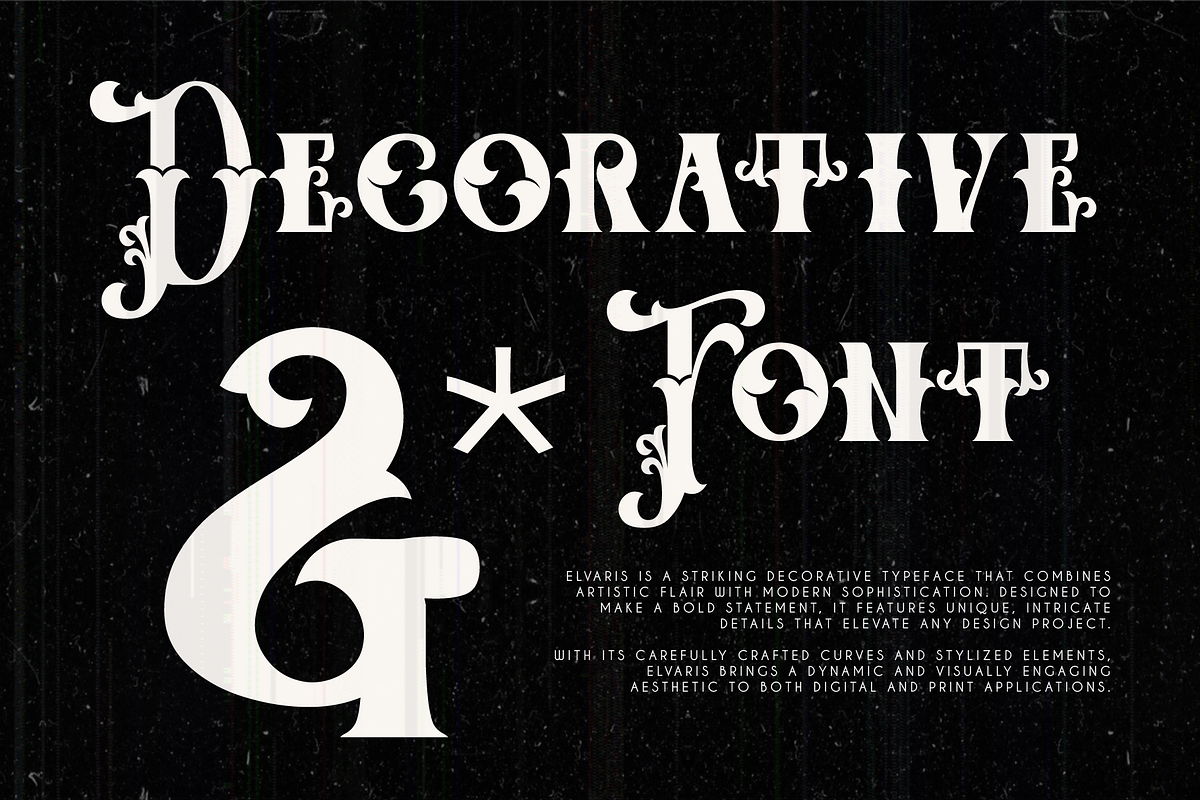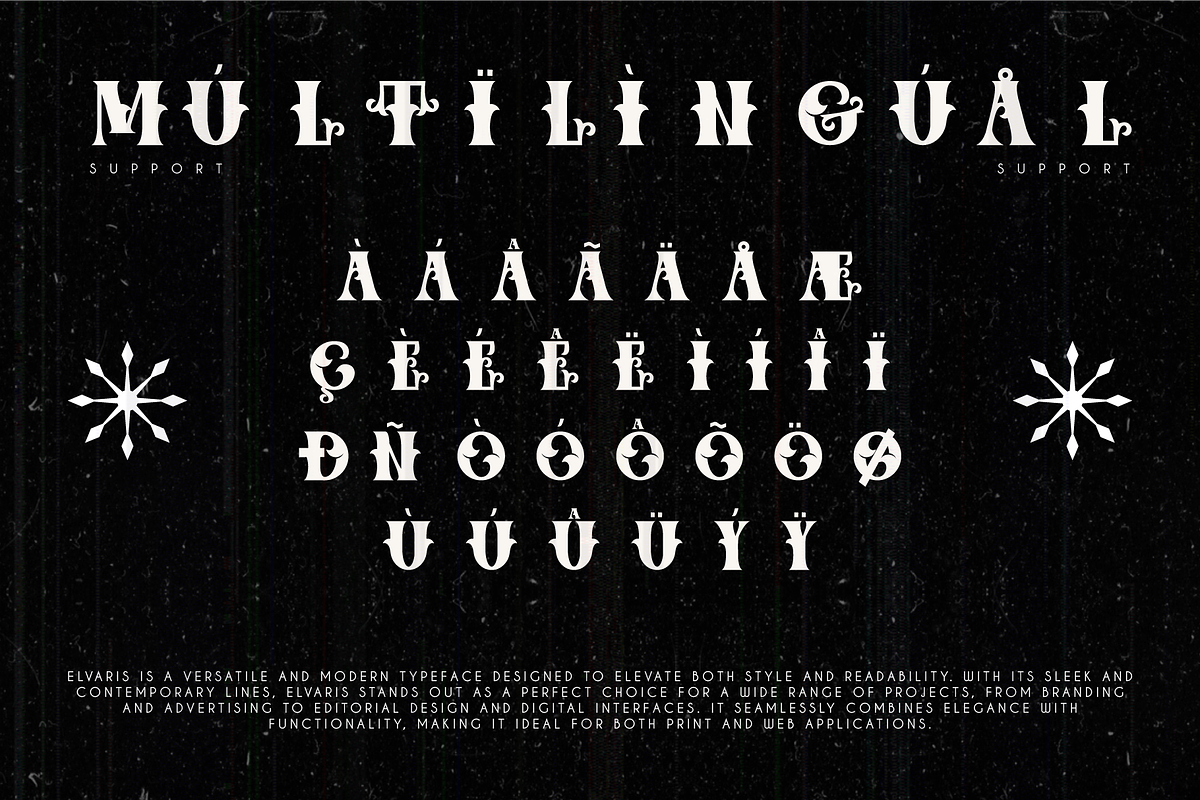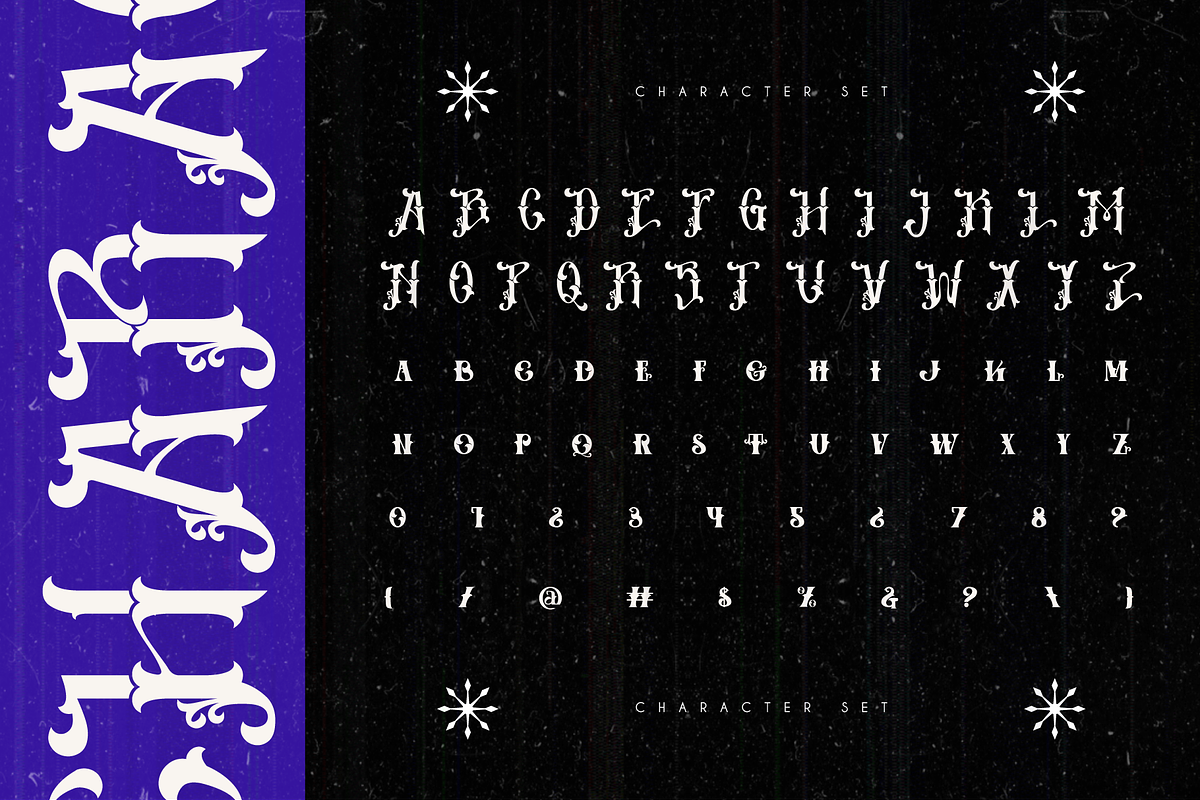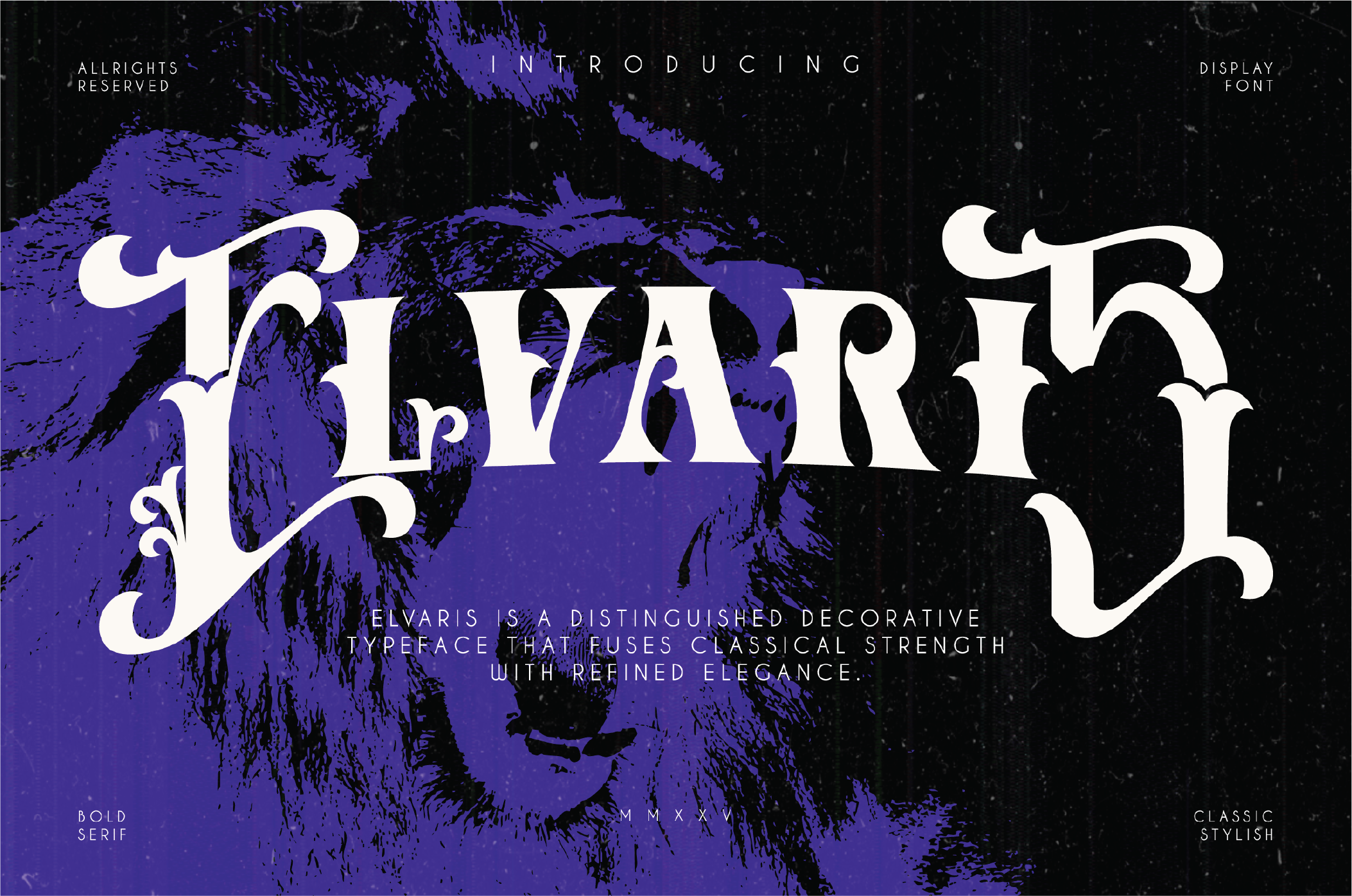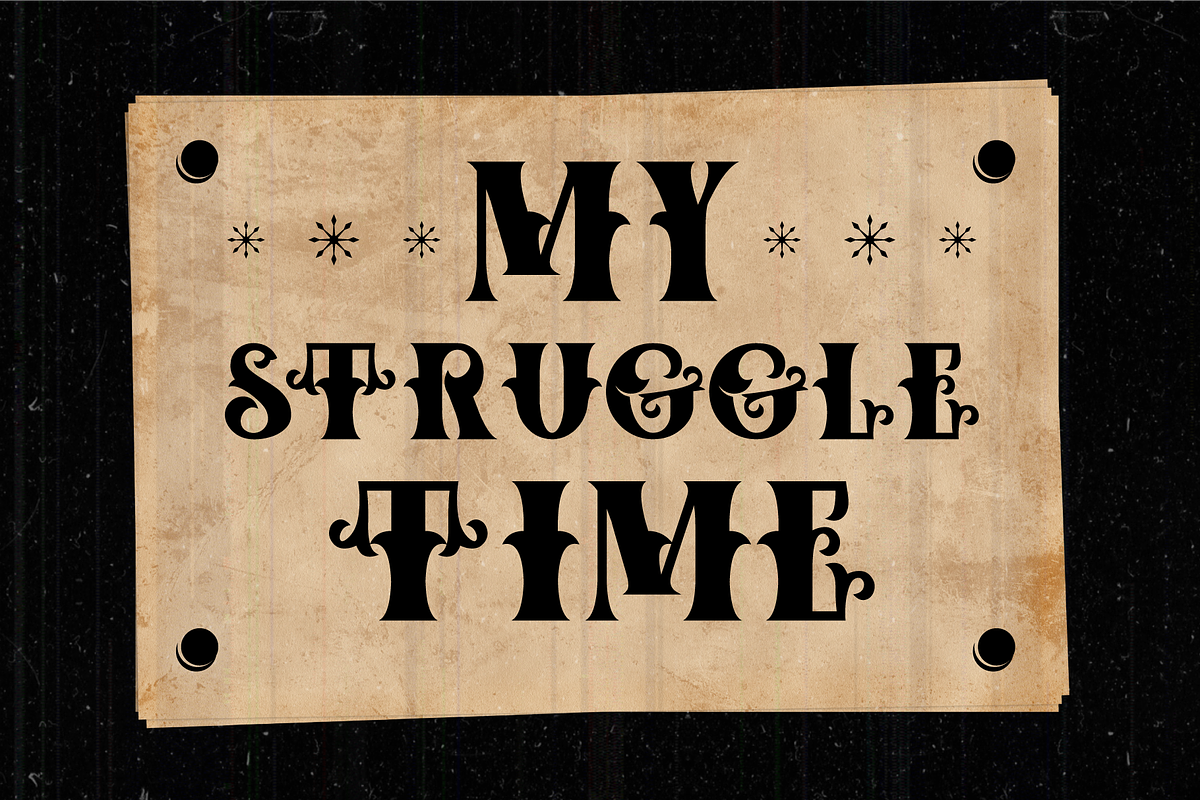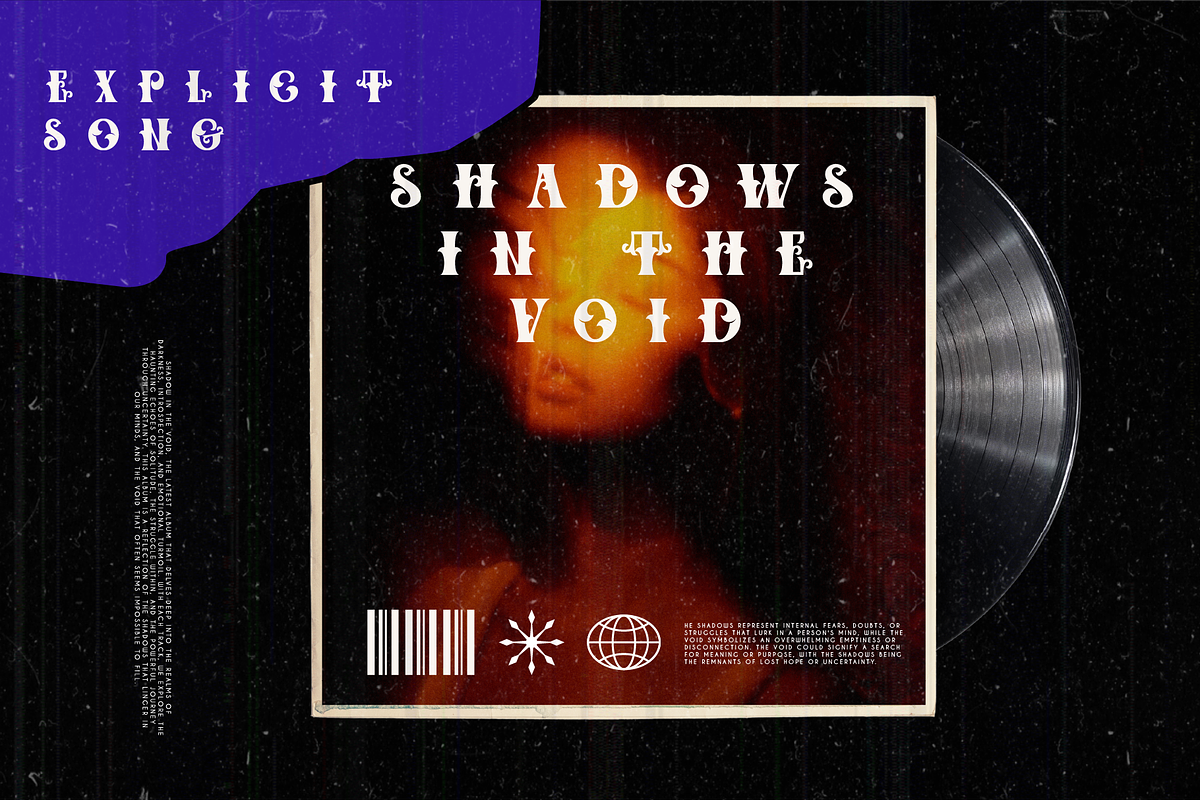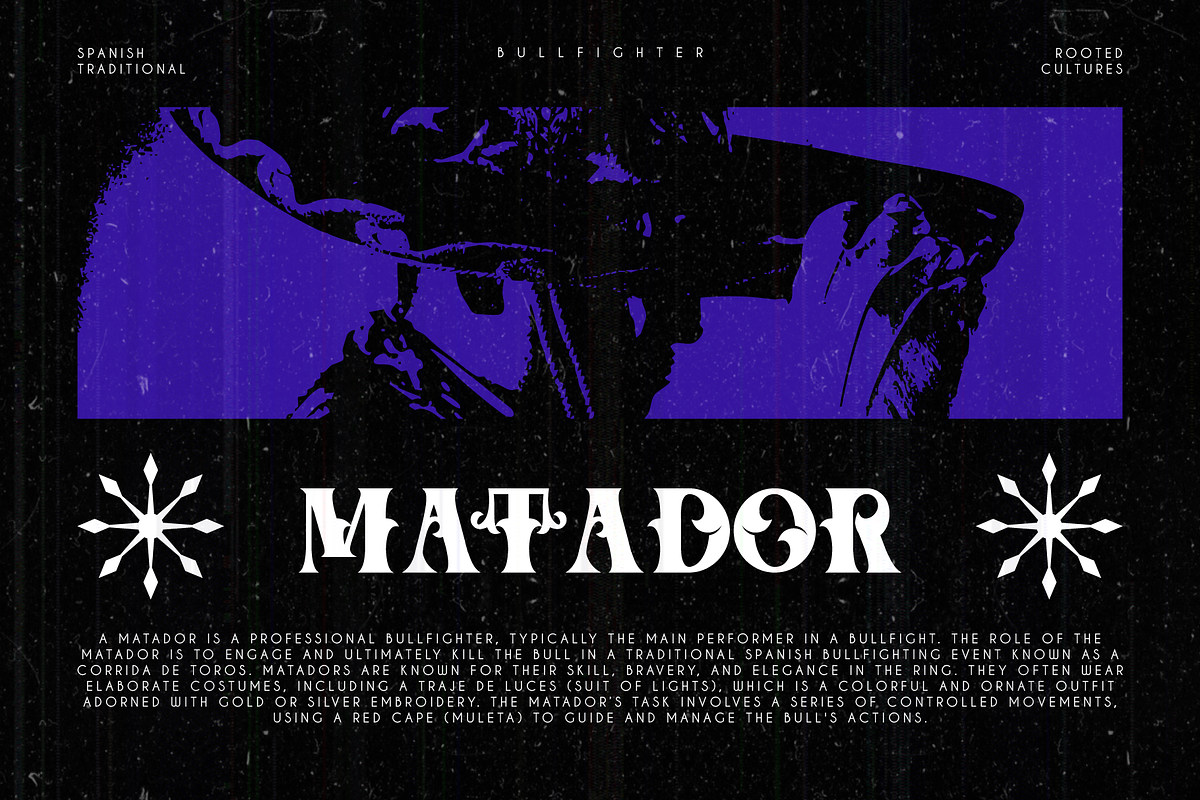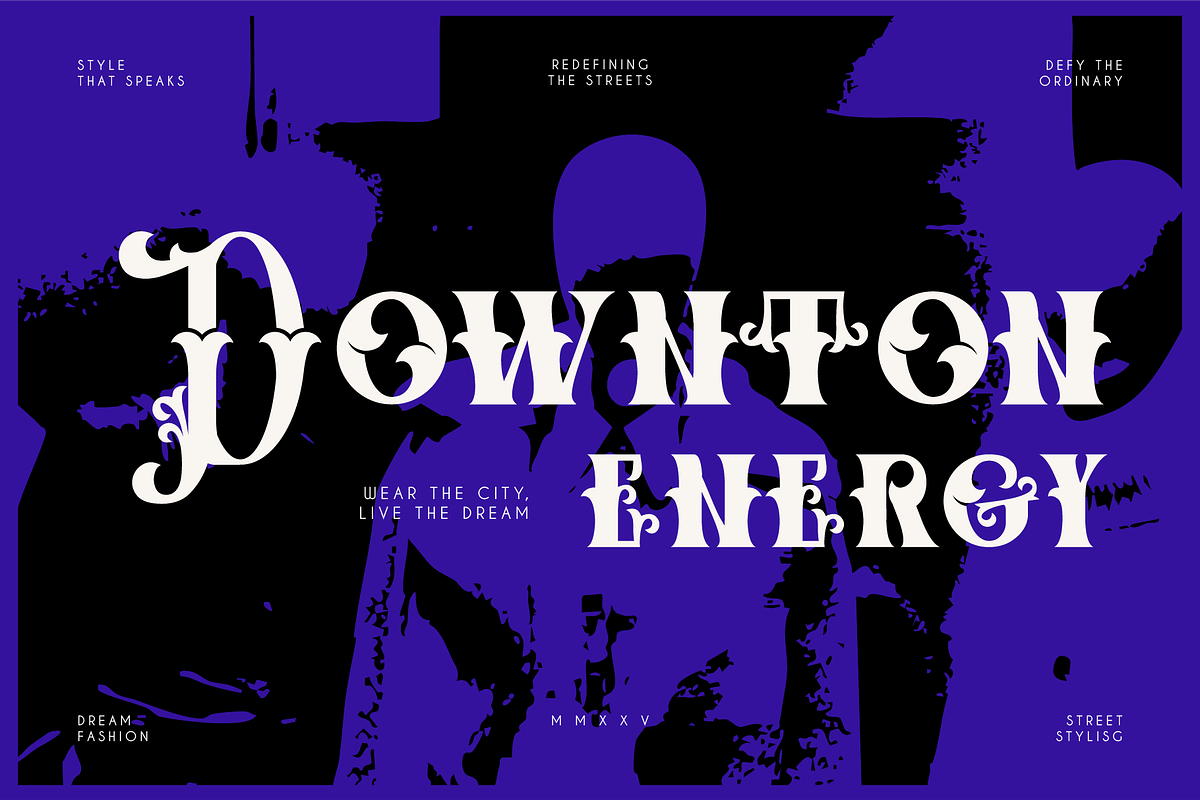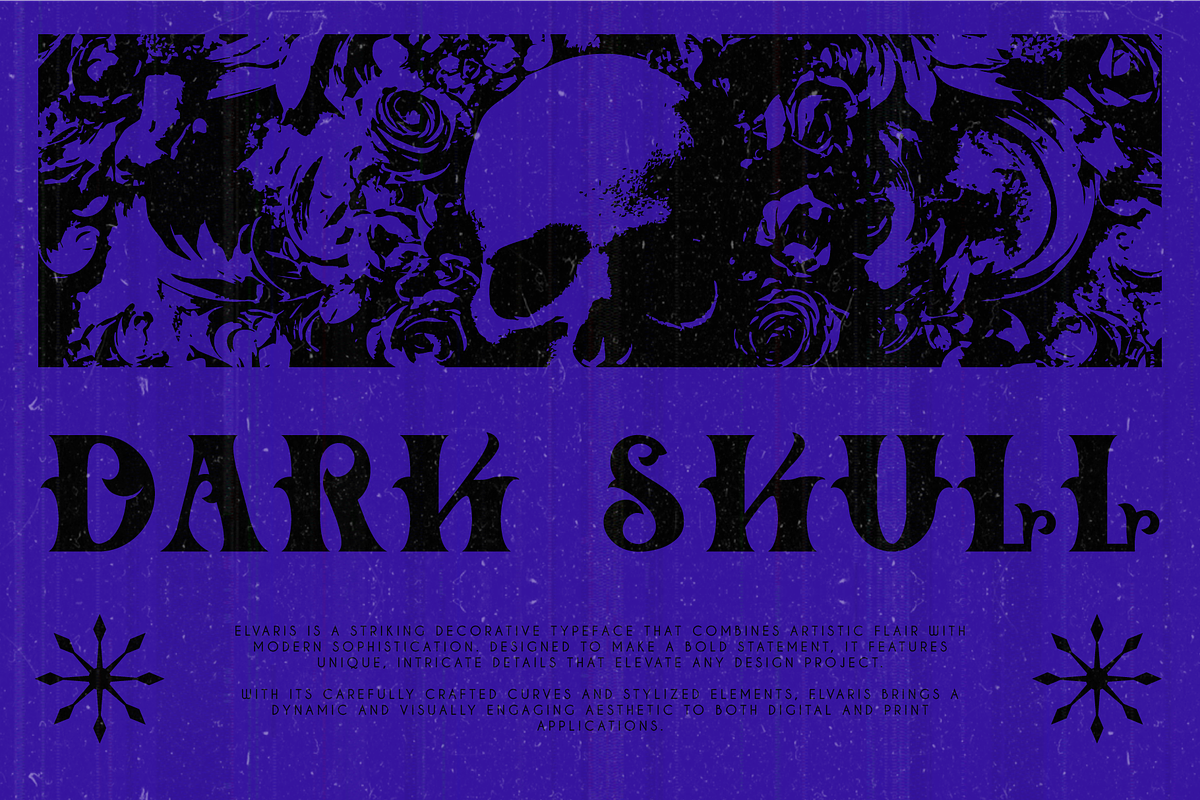
Elvaris - A Bold Serif Font
Elvaris is a distinguished, bold serif font that combines the strength of classic typography with the elegance of modern design. Its ornate details and refined structure give it a timeless appeal, perfect for projects that demand an air of sophistication.